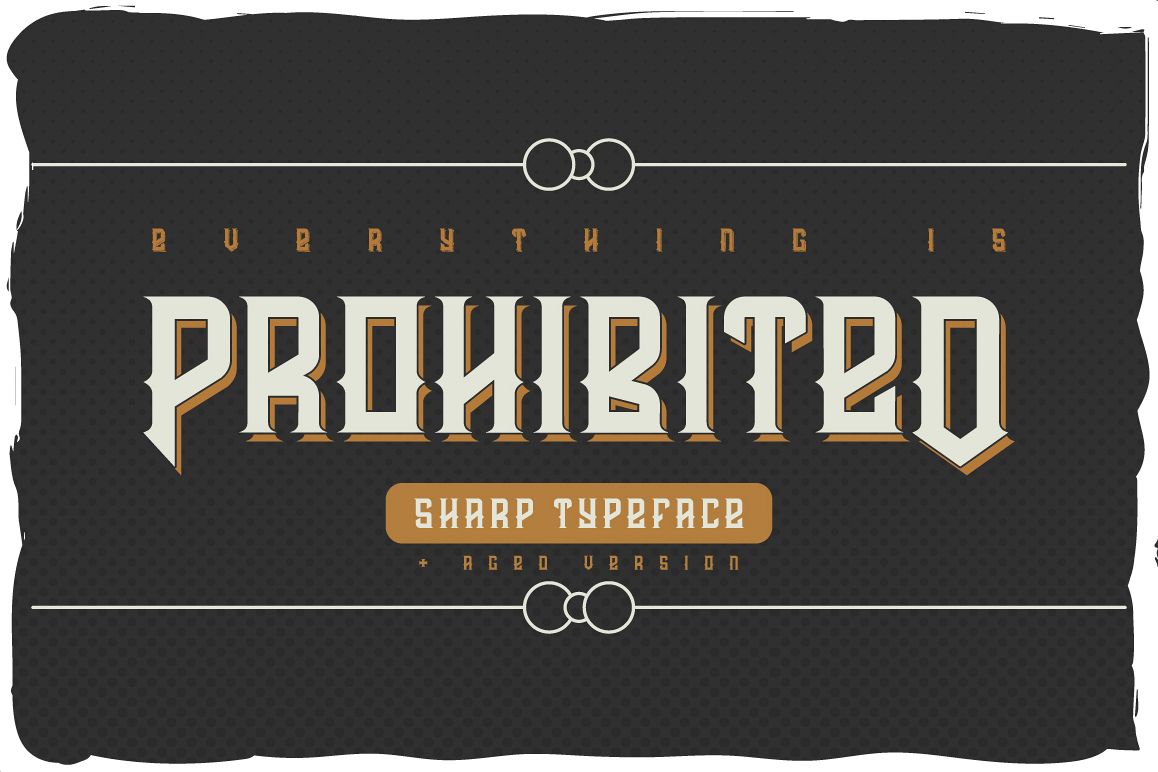
Prohibited typeface
Prohibited Regular
Prohibited shadow fx
Prohibited shadow
Prohibited Aged
Prohibited typeface + aged version
Introducing the font named "Prohibited". It includes numbers & punctuation glyps (4th screenshot). Special aged version is included in this font. It has a grunge scratched texture effect. As a bonus you will get lettering posters (2nd screenshot) in expanded EPS file.